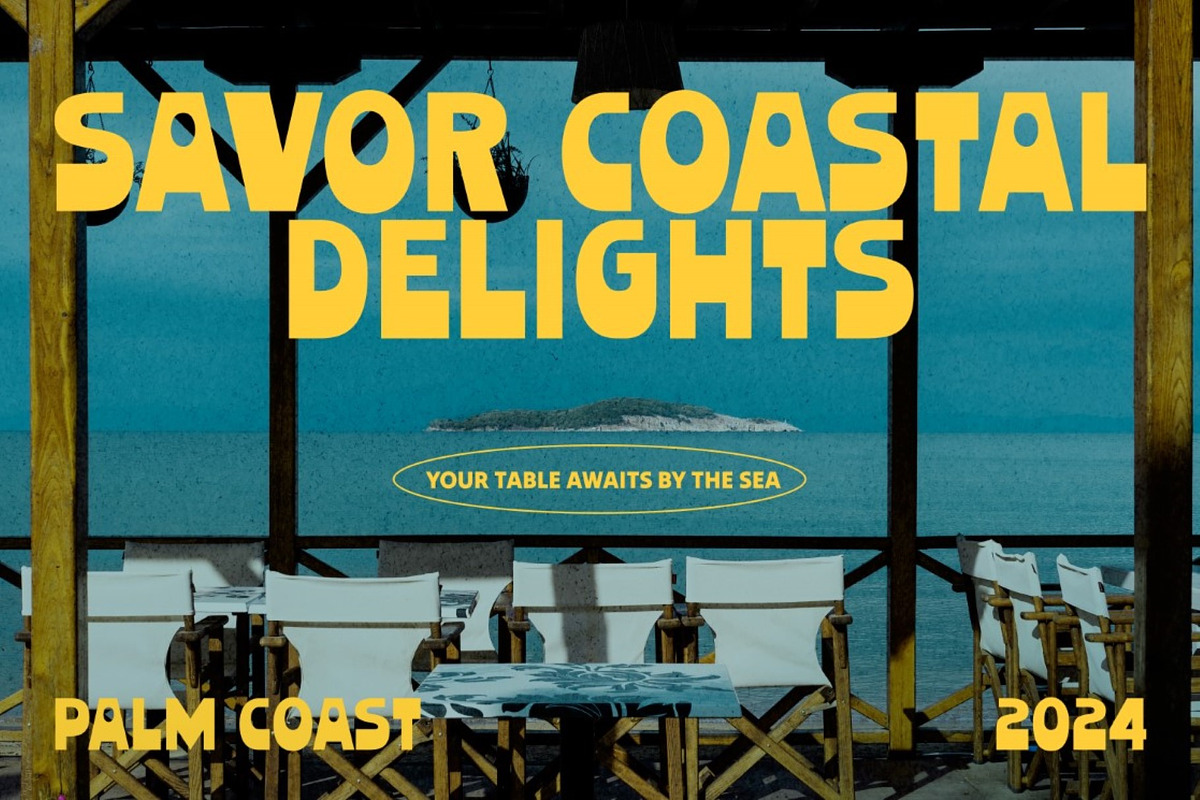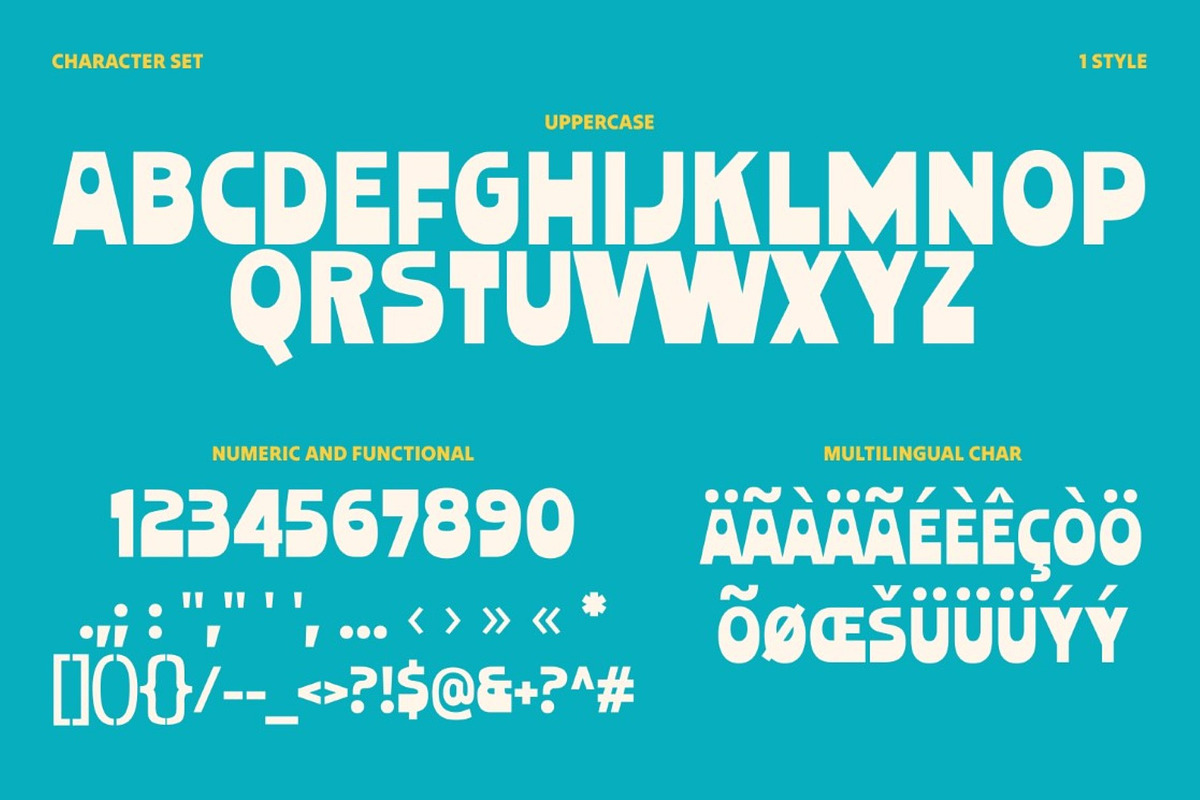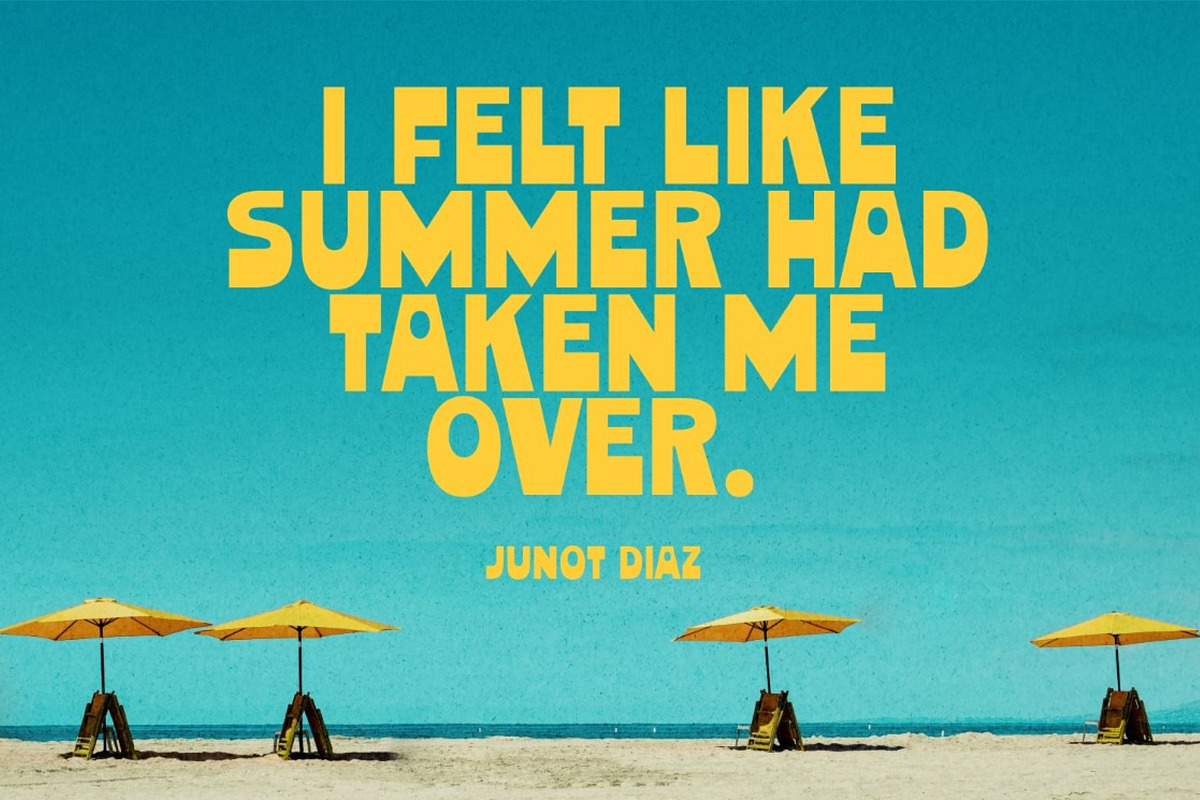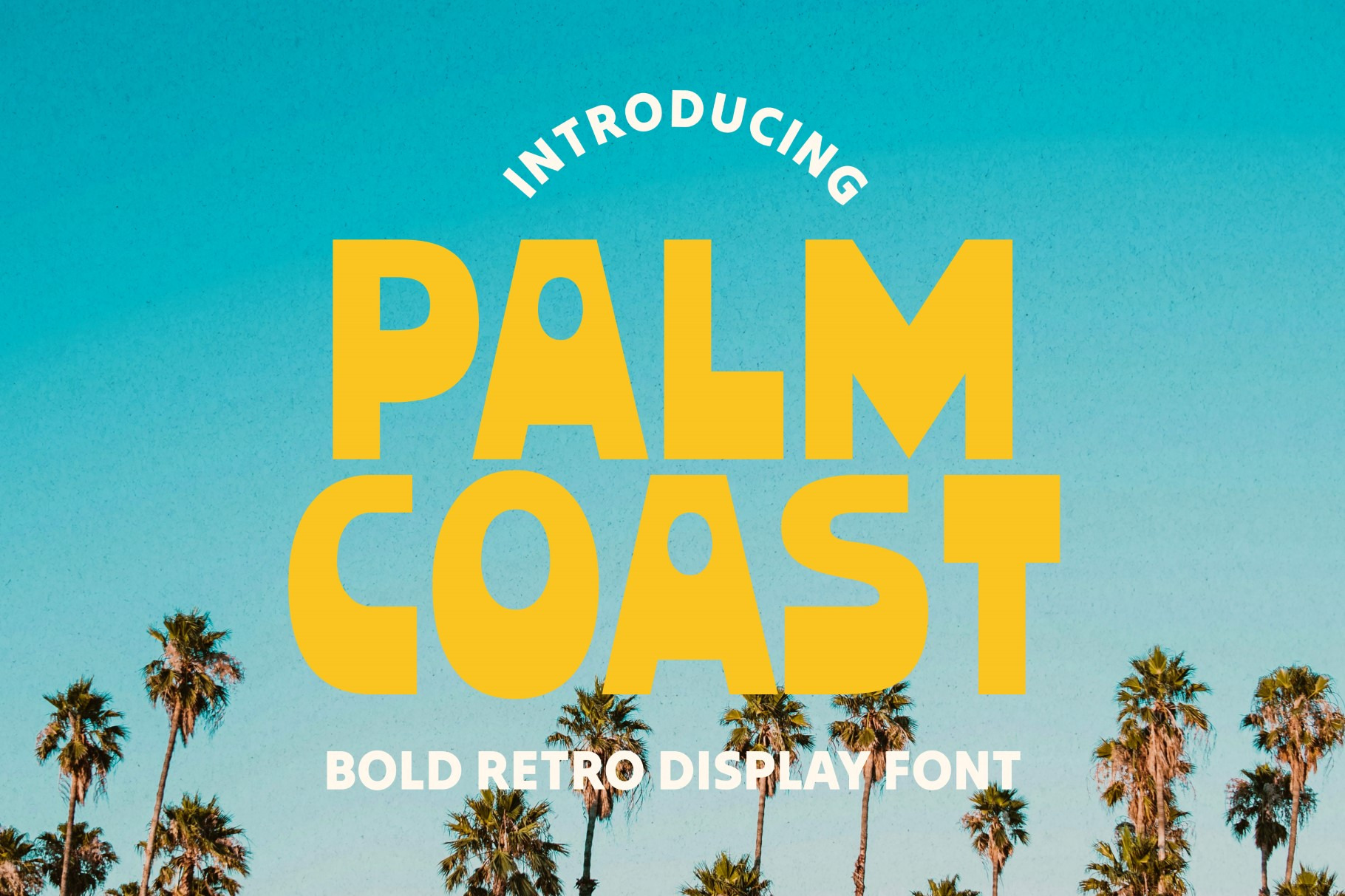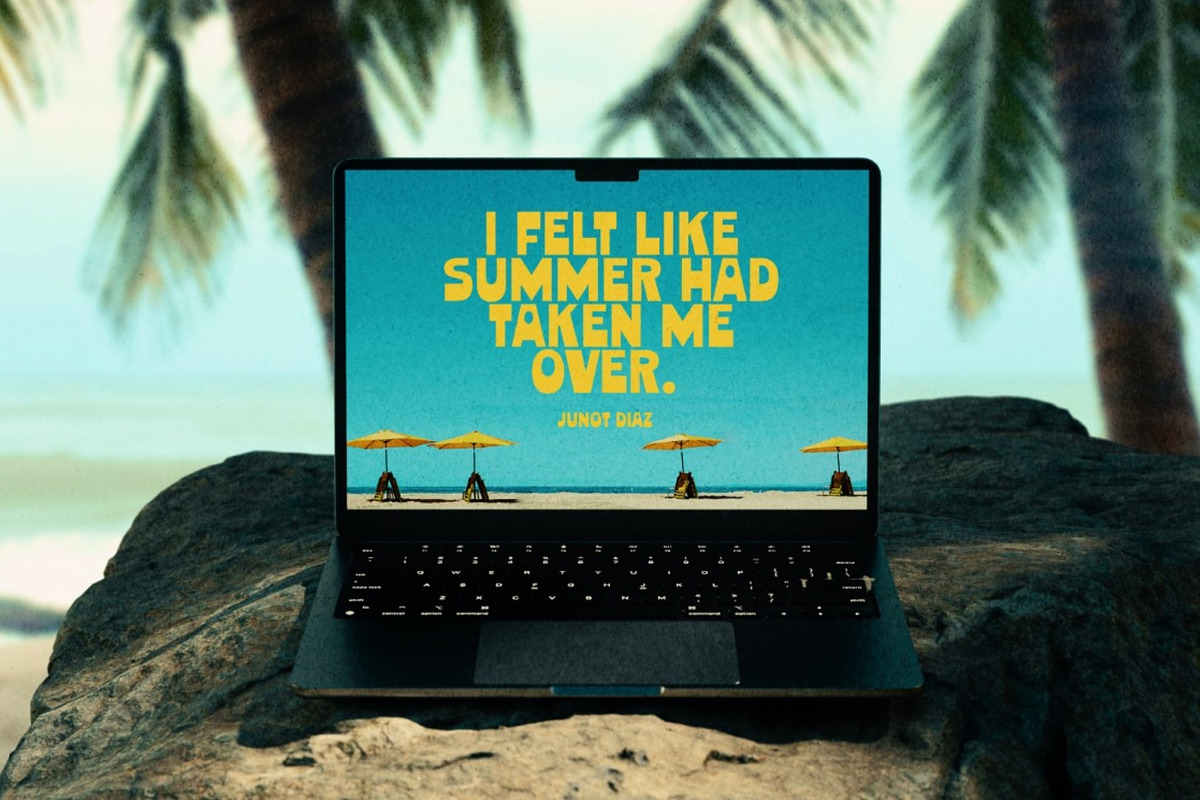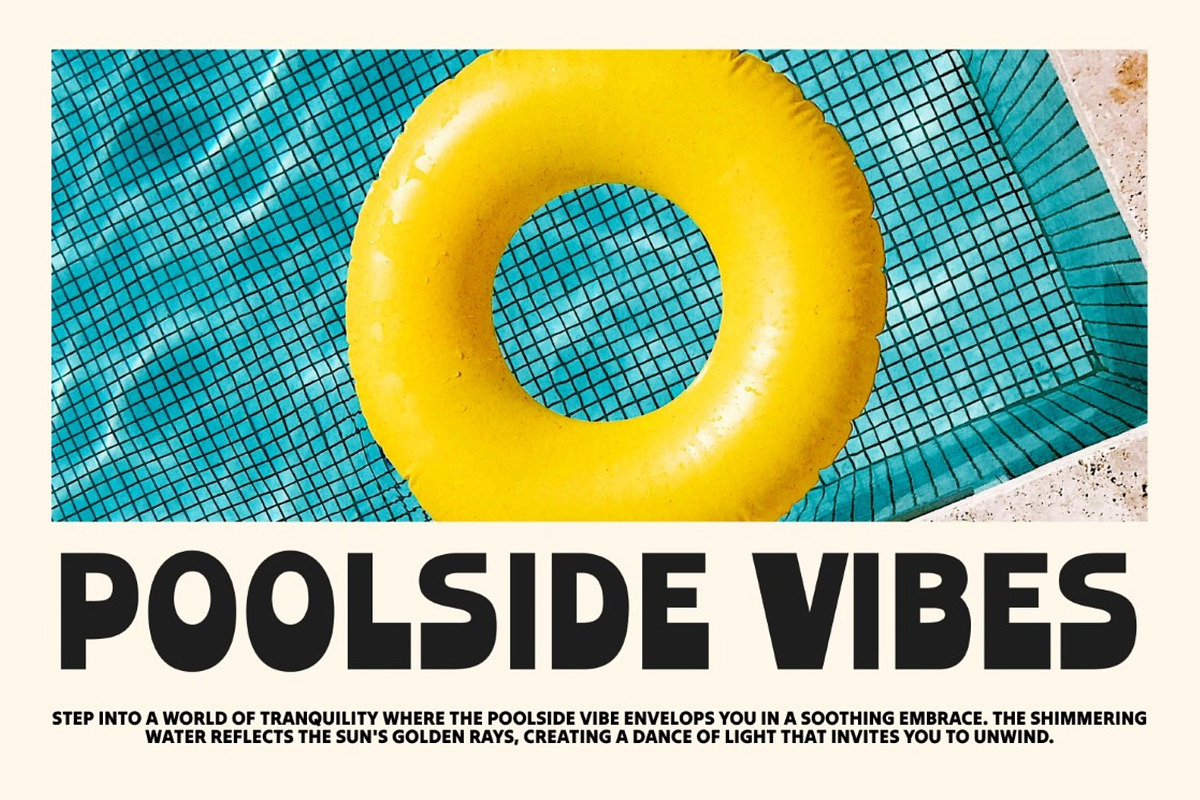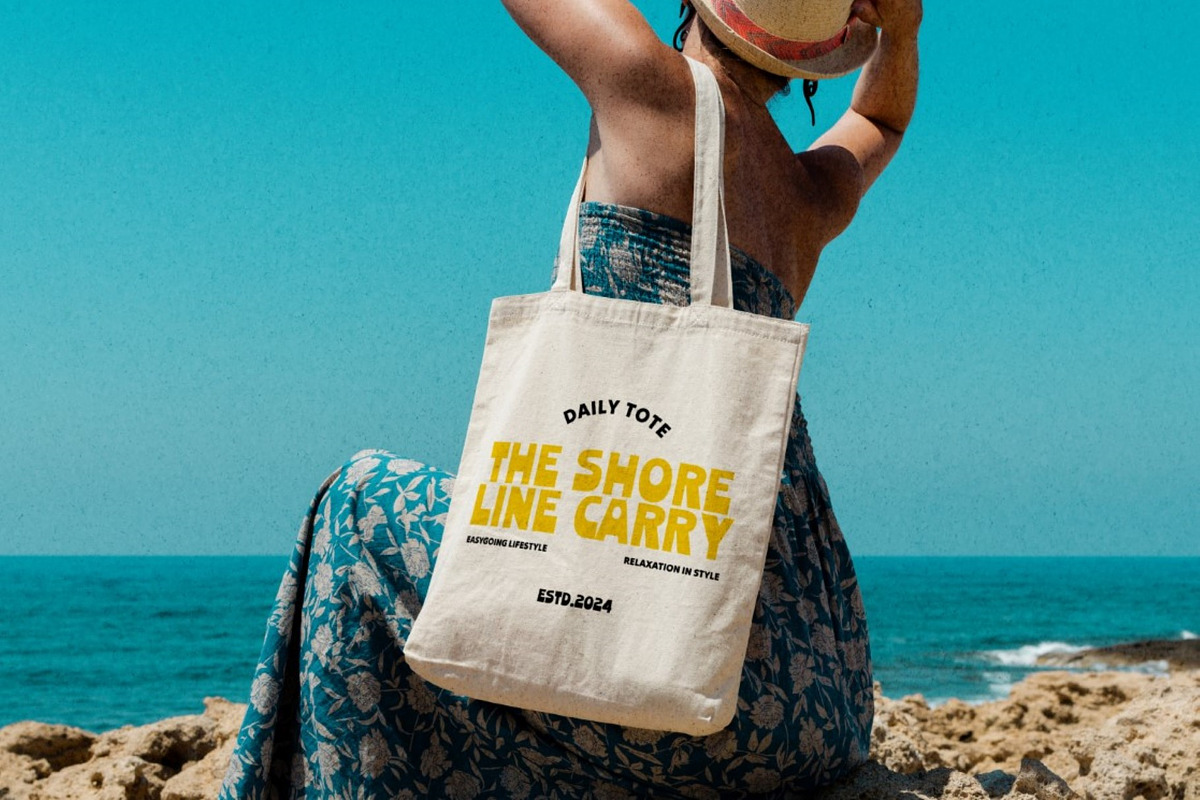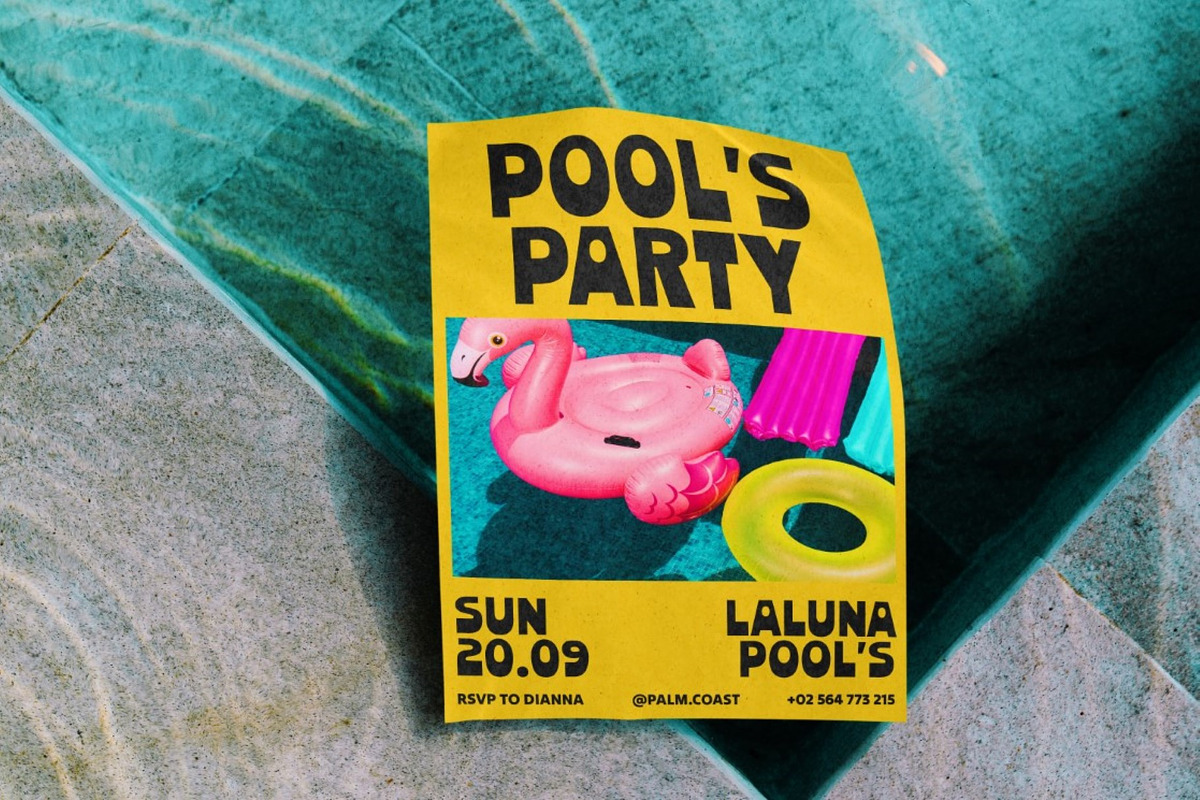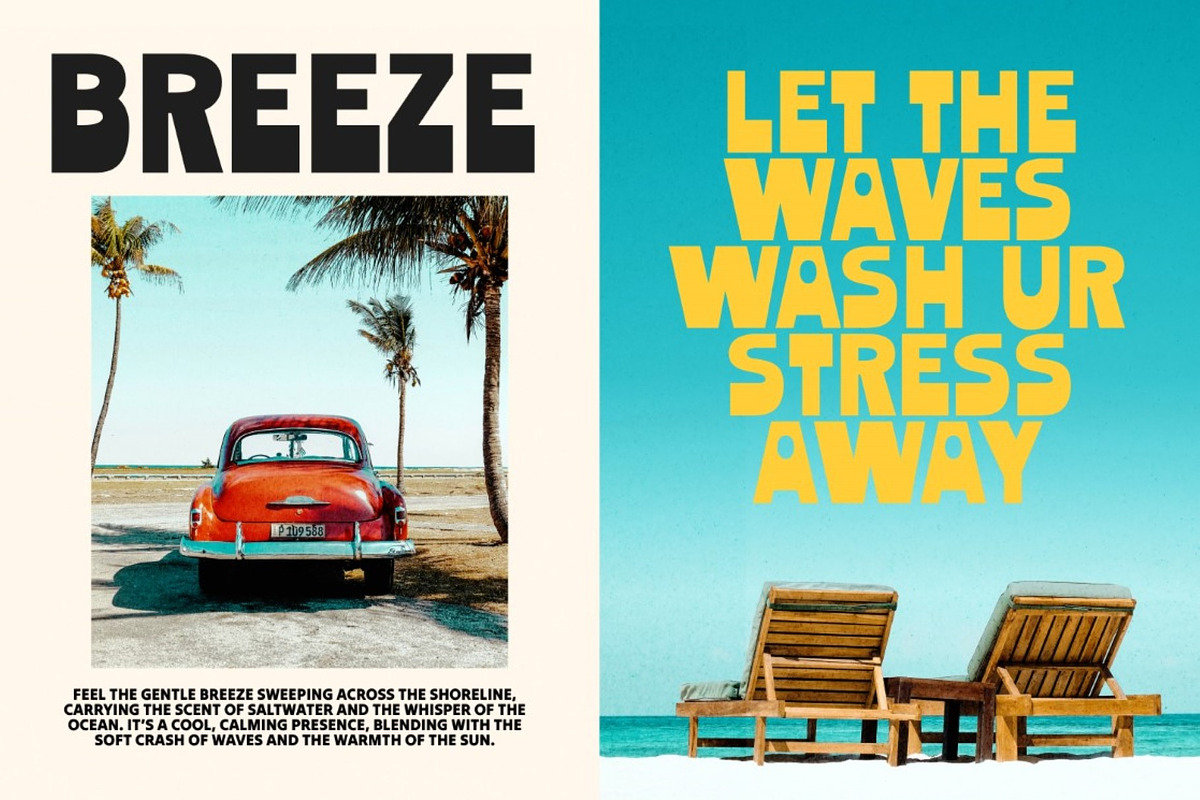
Palm Coast - Bold Retro Display Font
Palm Coast is a bold and playful retro display font, perfect for projects that need a touch of vibrant, nostalgic charm. With its chunky letters and whimsical design, it’s ideal for summer-themed designs, posters, branding, and more. The font evokes a fun, tropical vibe, making it a great choice for beach parties, vacation brochures, and relaxed, carefree aesthetics. Its vintage-inspired style adds character to any project, ensuring it stands out with a playful, bold statement